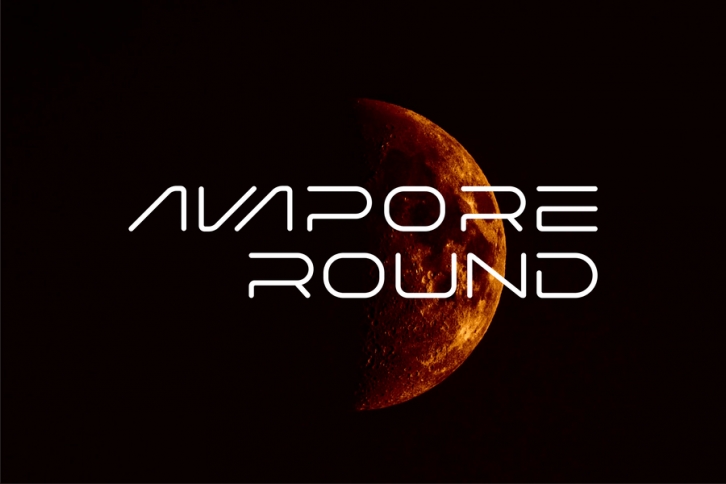
Avapore Round is a wide, round, contemporary sans serif typeface that was conceived as a branding and editorial solution. This Font was designed as a versatile and flexible that can be used on a range of projects and mediums.